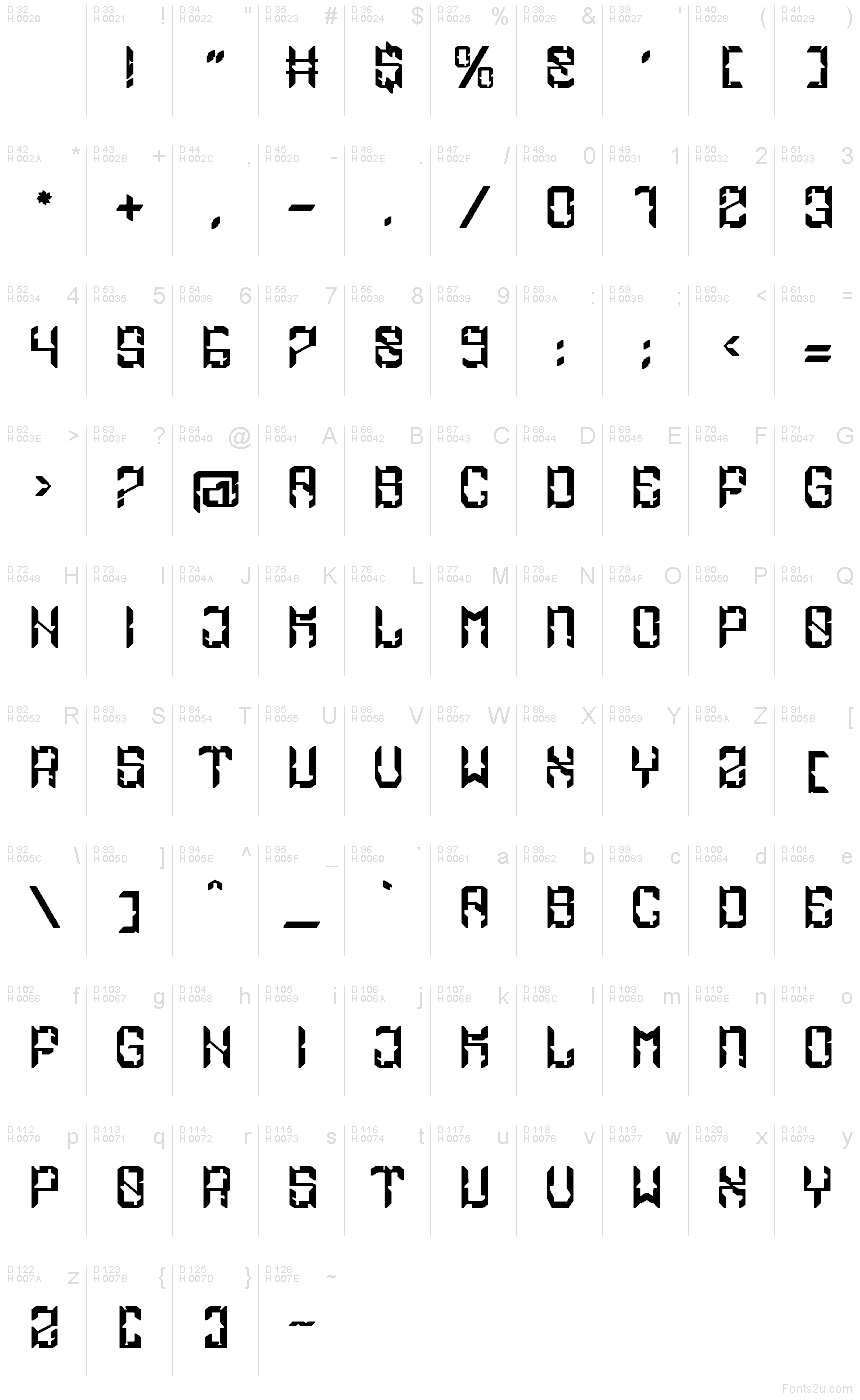
Truexon
Truexon font by Dhabee Studio is a free futuristic display typeface that looks like it was carved from steel panels and neon-lit corridors. Its chunky, squared forms and sharp interior cuts create a bold, mechanical rhythm, while the tight spacing pushes letters into a solid, unified wordmark. The result feels both industrial and sci‑fi, like signage from a distant colony or a high-tech arena.
Using Truexon, headlines snap into place with a heavy, armored presence that’s hard to ignore. This free font works beautifully for esports logos, sci‑fi posters, game titles, tech branding, music covers, and bold event graphics. Keep it large so the angular geometry really hits, and pair it with a clean geometric sans in smaller text to balance its dense, futuristic texture.